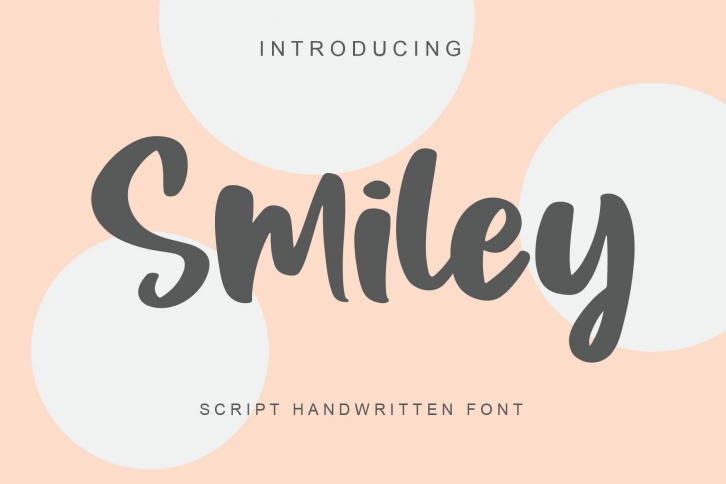
Smiley FONT Download
Smiley is a gorgeous font that was realeased on September 21, 2021. The font can be used in many style contexts and design environments. Perfect for invitations, magazines, websites, logos, and more! It was designed by alphArt and the file size is 3.1 MB. Thanks for checking out this font!